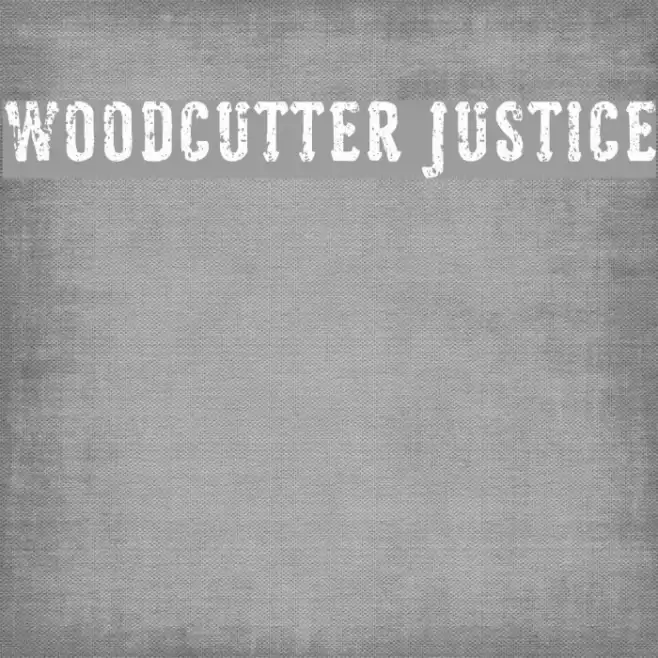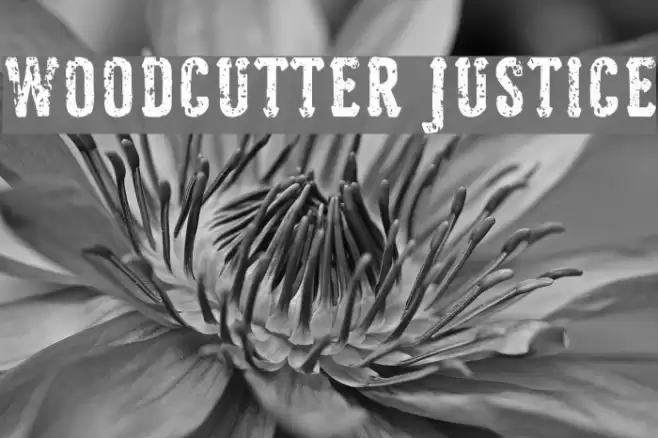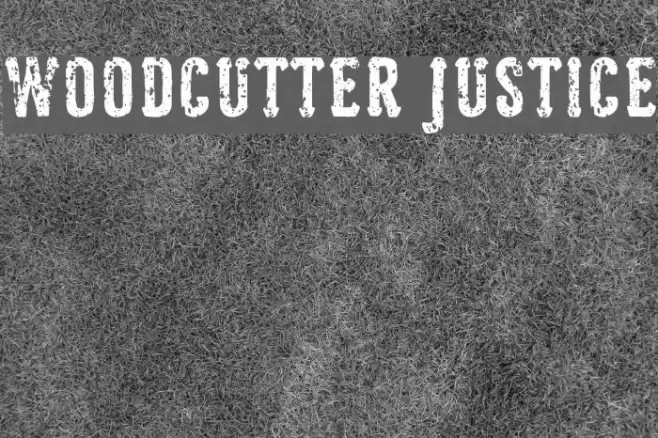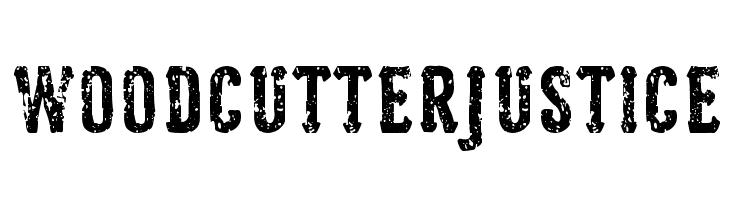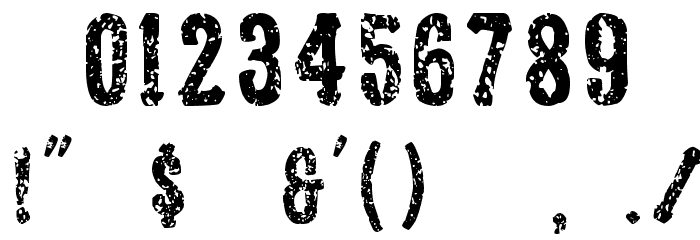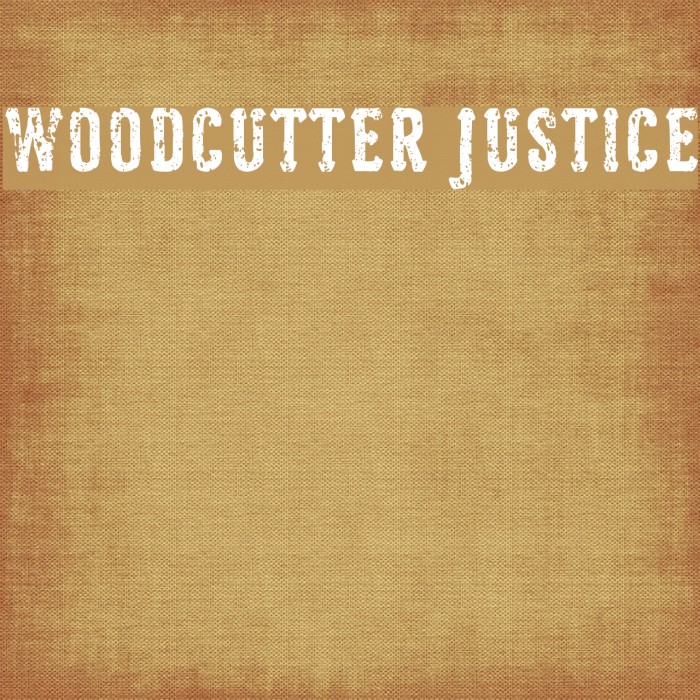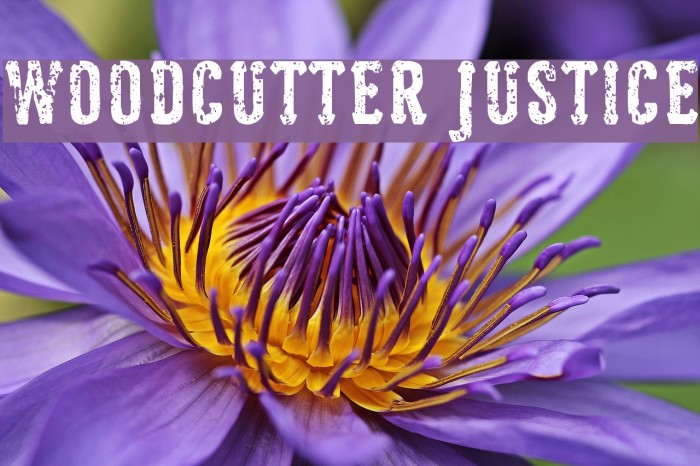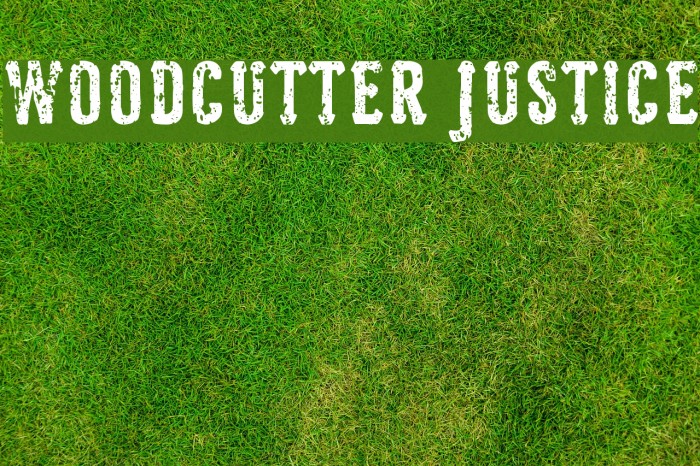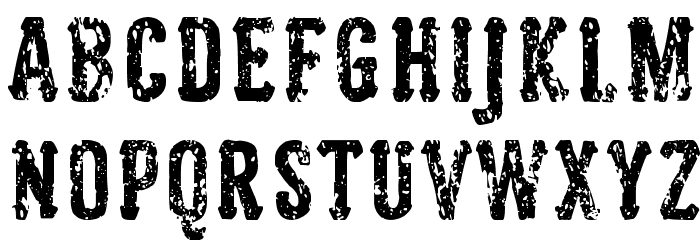
Woodcutter Justice Font
Woodcutter Justice Description
This font features a distressed, grunge style with a bold and impactful appearance. The characters are heavily textured, giving them a worn and rugged look, reminiscent of vintage woodcut prints. The uppercase letters are uniform in height, while the numbers and special characters maintain the same distressed aesthetic. This font's unique style makes it stand out, with each character appearing as if it has been weathered over time, adding a sense of history and character to any design.
A bold, distressed font with a vintage, grunge aesthetic from Distorted Eroded fonts.
- Proposed Projects: Ideal for projects that require a rustic or vintage feel, such as posters, album covers, branding for artisanal products, or any design that aims to evoke a sense of history and authenticity.
- Overall Style: Vintage